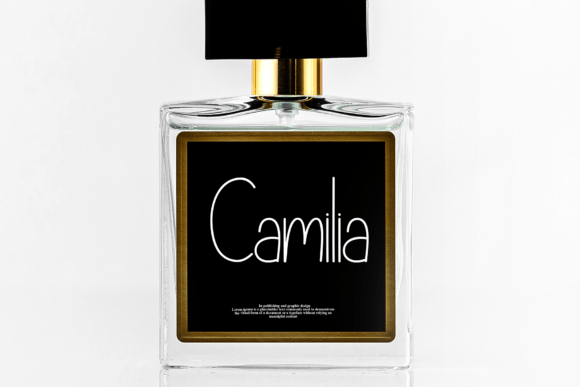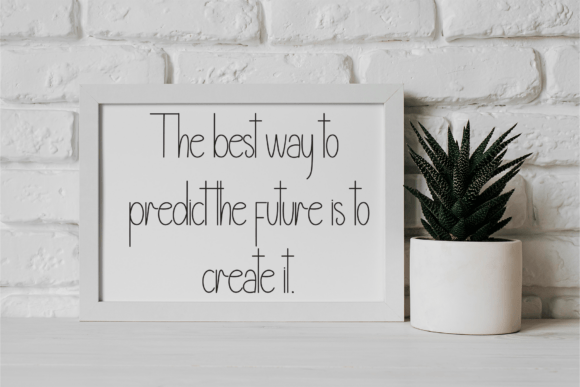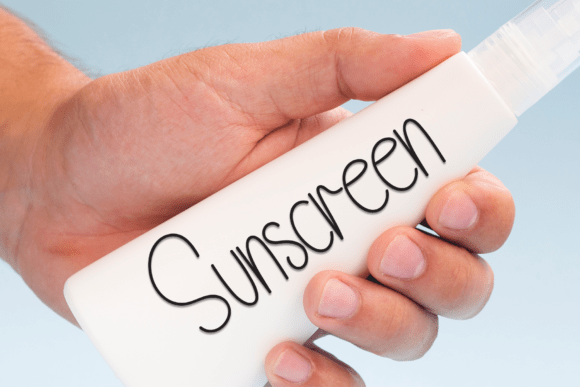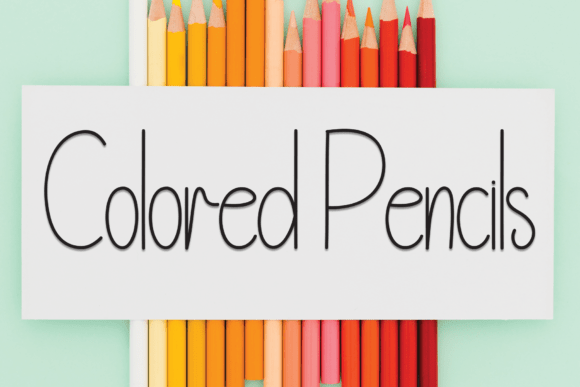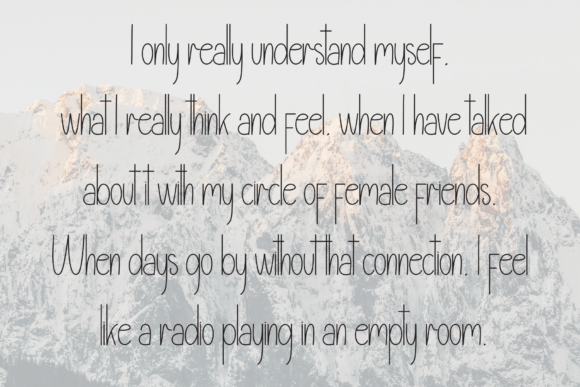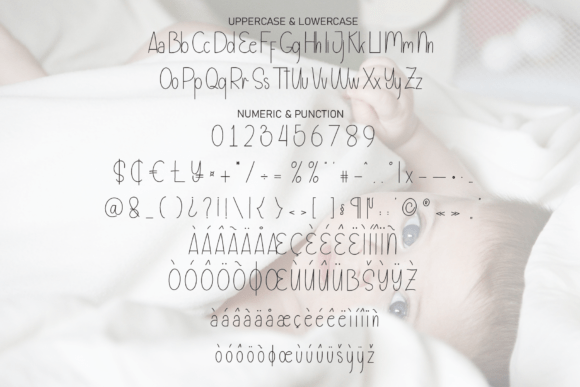
Hello Baby Font: The Perfect Choice for Designers and Crafters
Hello Baby Font is a casual and neat display font that has gained popularity among designers and crafters due to its fresh, friendly vibe. This font is perfect for anyone looking to add a touch of approachability and charm to their projects. In this article, we’ll explore the features and benefits of Hello Baby Font, and why it’s an excellent choice for packaging, posters, social media graphics, and more.
Clean Lines and Relaxed Structure
One of the standout features of Hello Baby Font is its clean lines and relaxed structure. The font’s design is characterized by simple, uncomplicated lines that give it a neat and organized appearance. This makes it perfect for projects that require a clear and concise visual message. The relaxed structure of the font also adds a touch of friendliness, making it ideal for designs that need to convey a sense of approachability.
Perfect for Packaging, Posters, and Social Media Graphics
Hello Baby Font is a versatile font that can be used in a variety of design projects. Its clean and friendly design makes it perfect for packaging, posters, and social media graphics. For packaging designers, Hello Baby Font can add a touch of personality to product labels and packaging materials. For poster designers, the font can be used to create eye-catching headlines and titles that grab attention. And for social media graphic designers, Hello Baby Font can be used to create engaging and shareable graphics that resonate with audiences.
Approachable Design with Charm and Clarity
The approachable design of Hello Baby Font is one of its most significant advantages. The font’s clean lines and relaxed structure make it easy to read and understand, even at small sizes. This makes it perfect for designs that require a clear and concise visual message. Additionally, the font’s friendly vibe adds a touch of charm to projects, making them more engaging and memorable.
Polished Appearance
Despite its casual and relaxed design, Hello Baby Font maintains a polished appearance that is perfect for professional design projects. The font’s clean lines and simple structure give it a sophisticated look that is suitable for a wide range of design applications. Whether you’re designing for a corporate client or creating a personal project, Hello Baby Font is a great choice.
Hello Baby Font offers a range of benefits for designers and crafters. Some of the key benefits include:
• Versatility: The font can be used in a variety of design projects, from packaging to social media graphics.
• Fresh and friendly vibe: The font’s design adds a touch of freshness and friendliness to projects.
• Polished appearance: Despite its casual design, the font maintains a polished appearance that is perfect for professional projects.
Hello Baby Font is a versatile and charming font that is perfect for designers and crafters. Its clean lines, relaxed structure, and friendly vibe make it an excellent choice for packaging, posters, social media graphics, and more. With its polished appearance and ease of use, Hello Baby Font is a great addition to any design project.